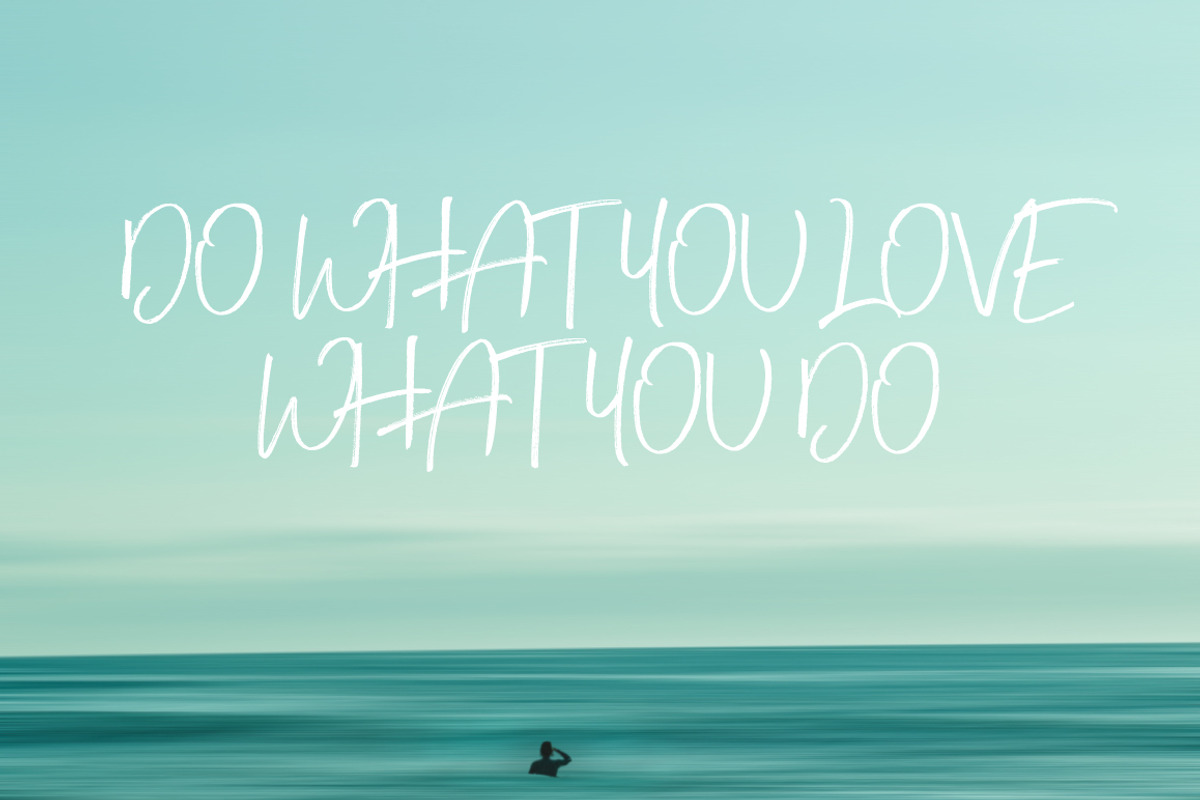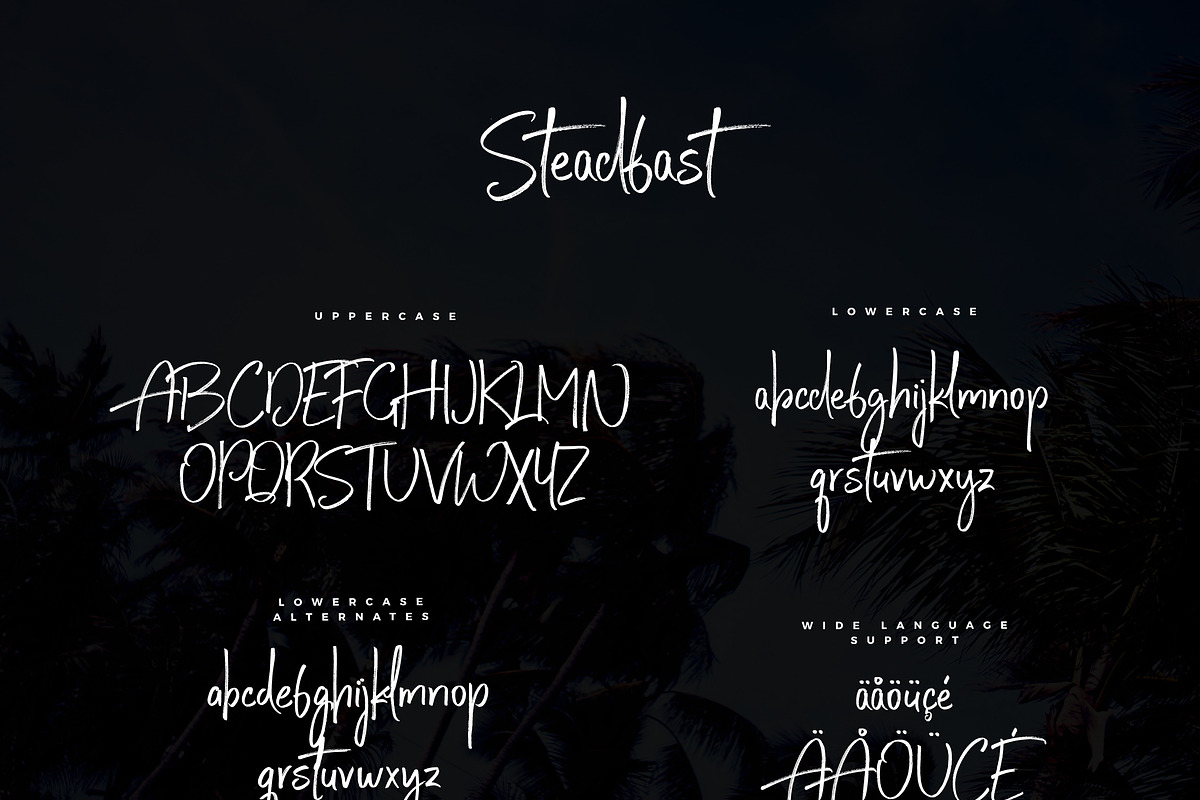
Steadfast Script
Say Howdy to Steadfast Script Inspired by the modern popular handlettering style and super-fancy blog/social media designs, this font will make your designs instantly jaw-breaker! This true passion-driver is made with a real dry ink brush and scanned through high-definition scanner.
I've added alternates for the lowercase characters so you can get the instant authenticity to your design. Uppercase characters works perfectly with lowercase, but they also work as a HIGH-CAPS so you can create those beautiful designs changing from lowercase to high-caps 😊
Steadfast Script includes (total 3 fonts):
STEADFAST SCRIPT - Upper and lowercase characters, numerals, punctuations and a wide language support. Alternates for lowercase characters. Including both, OTF and TTF filetypes.
STEADFAST SCRIPT ALT - Alternates for lowercase characters. Including both, OTF and TTF filetypes.
STEADFAST SCRIPT SWASHES - Swashes to give your designs a unique punch! Including both, OTF and TTF filetypes.